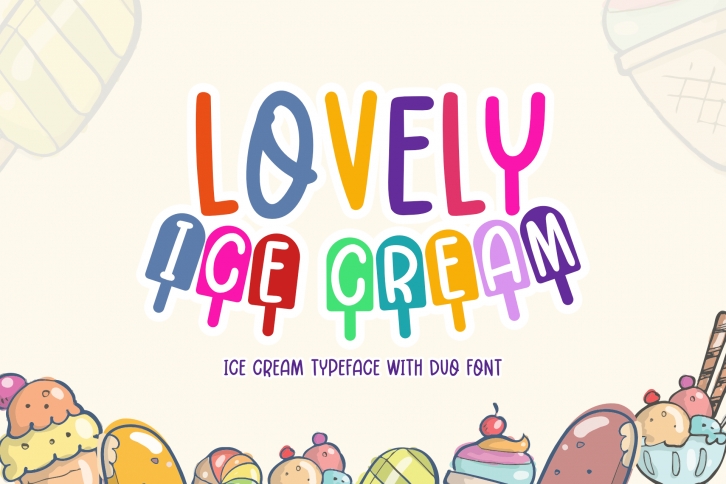
Lovely Ice Cream is an adorable duo font (decorative and display) designed to add an exciting touch to your projects. Every letter has a unique and beautiful touch, which will make your design come alive!